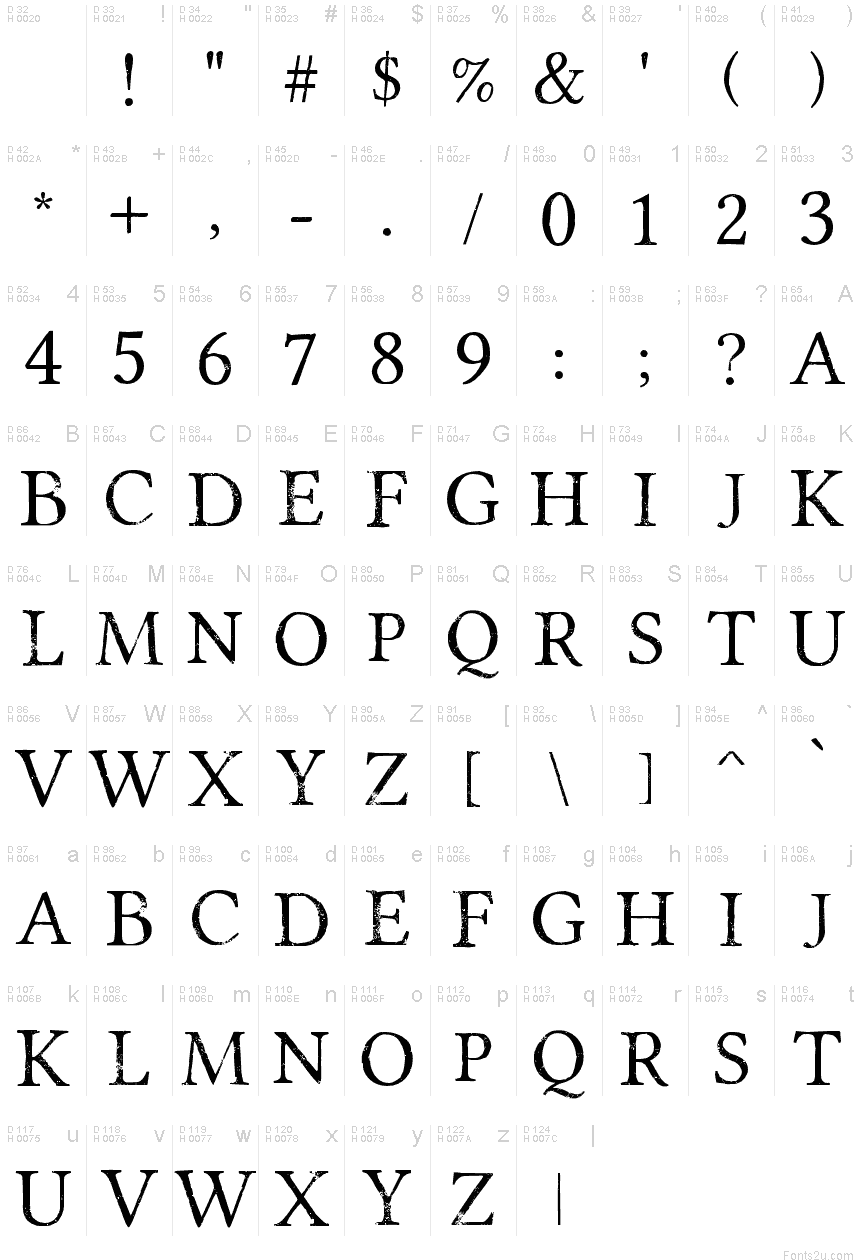
Portmanteau Regular
Portmanteau is a free eroded serif display font with stately Roman proportions and an uneven surface of chips, scratches, and missing flecks. Its tall capitals combine broad curves, sharp wedge serifs, and pronounced thick-thin contrast.
Historical publishing and museum exhibition graphics benefit from its resemblance to worn inscriptions and distressed old print, especially when a project needs a formal voice with visible age. The same scarred elegance also suits spirits packaging, album covers, and theatrical posters built around decay, antiquity, or gothic drama.